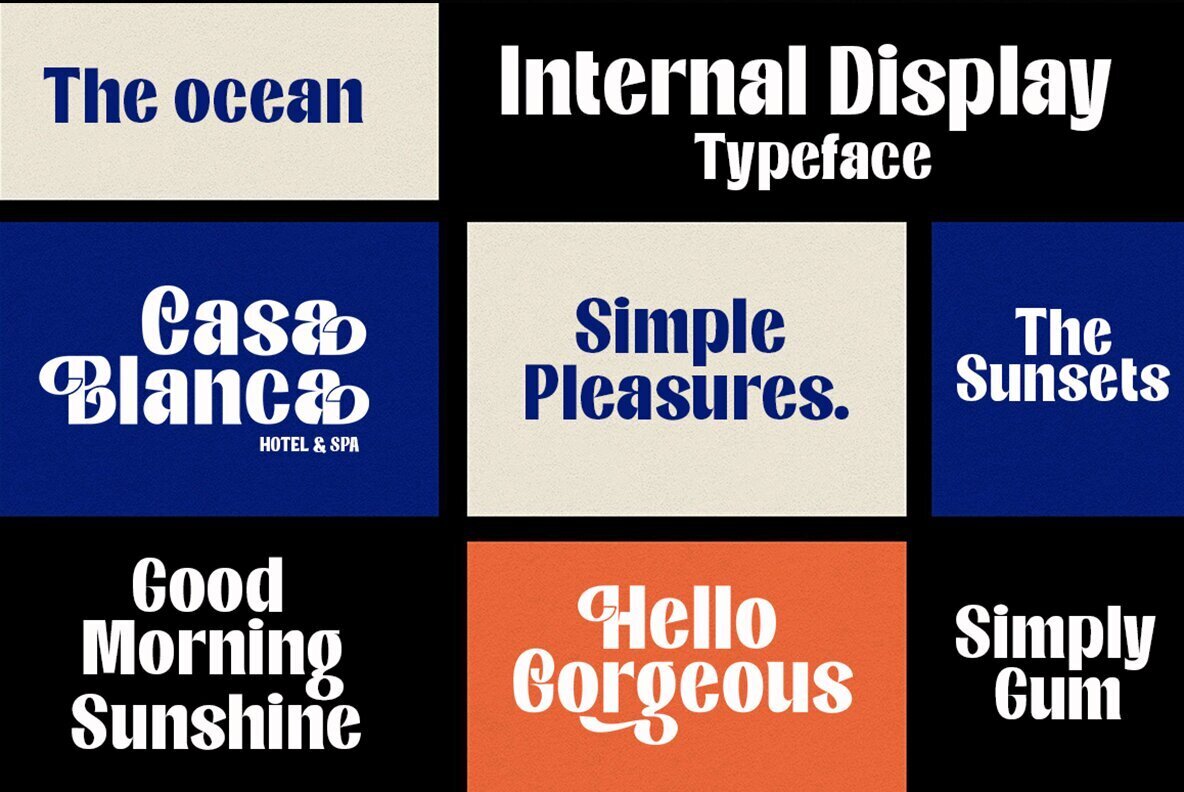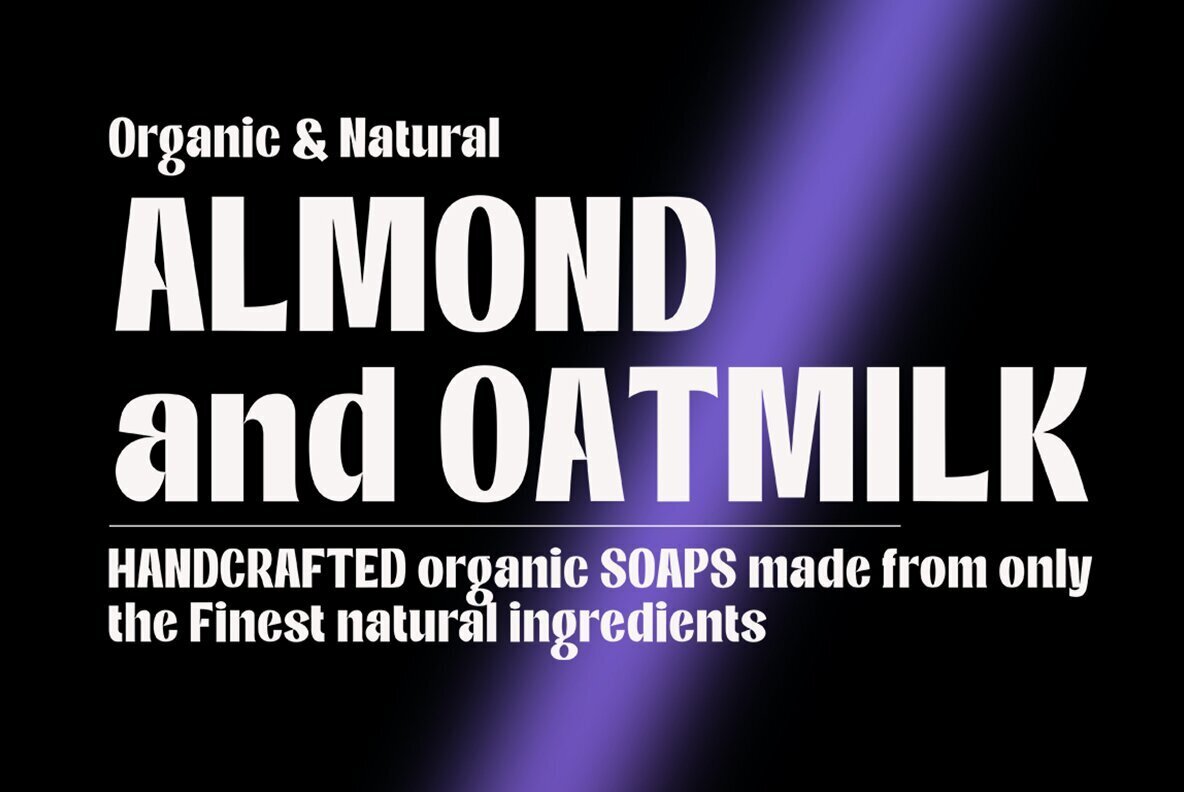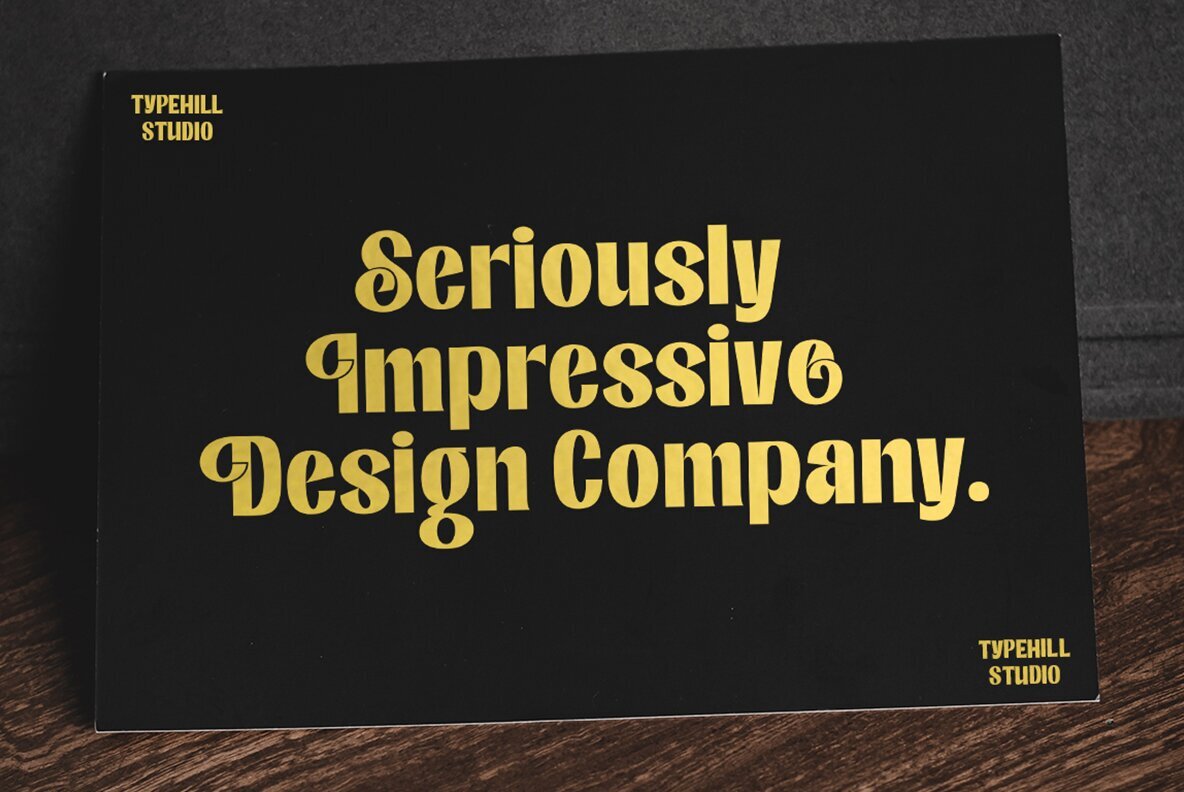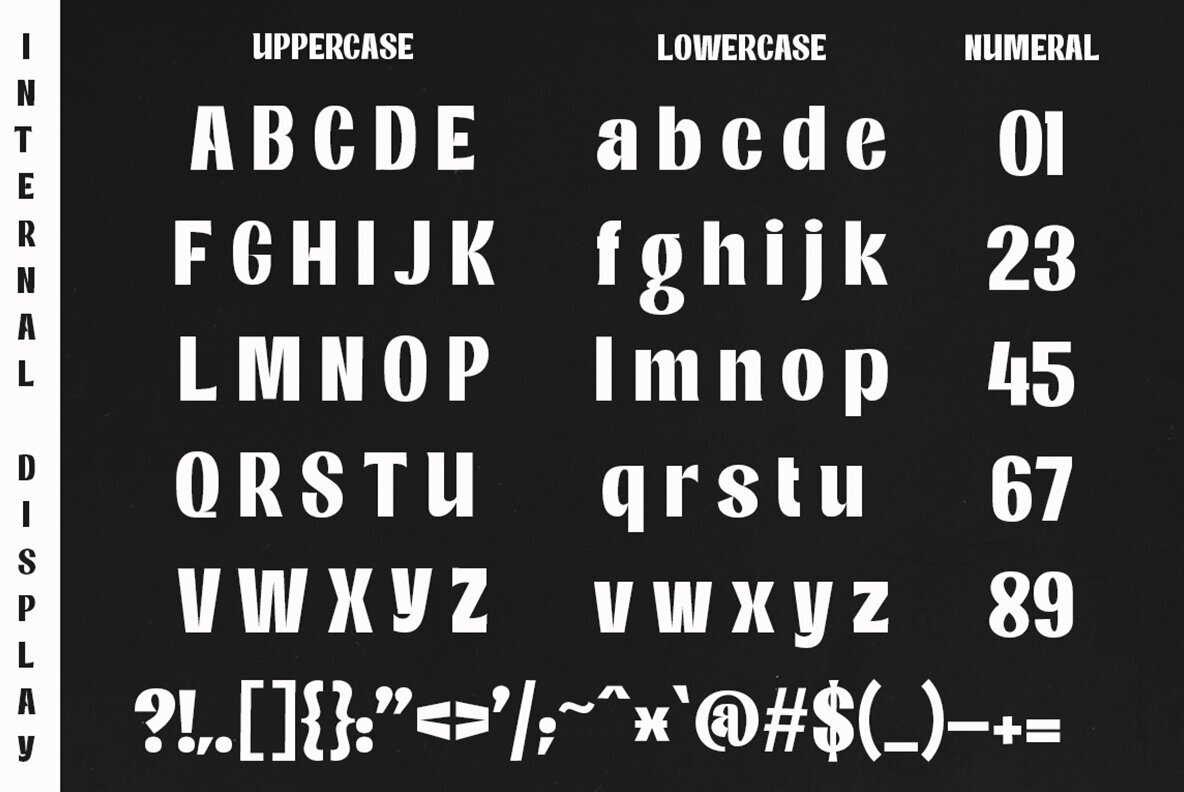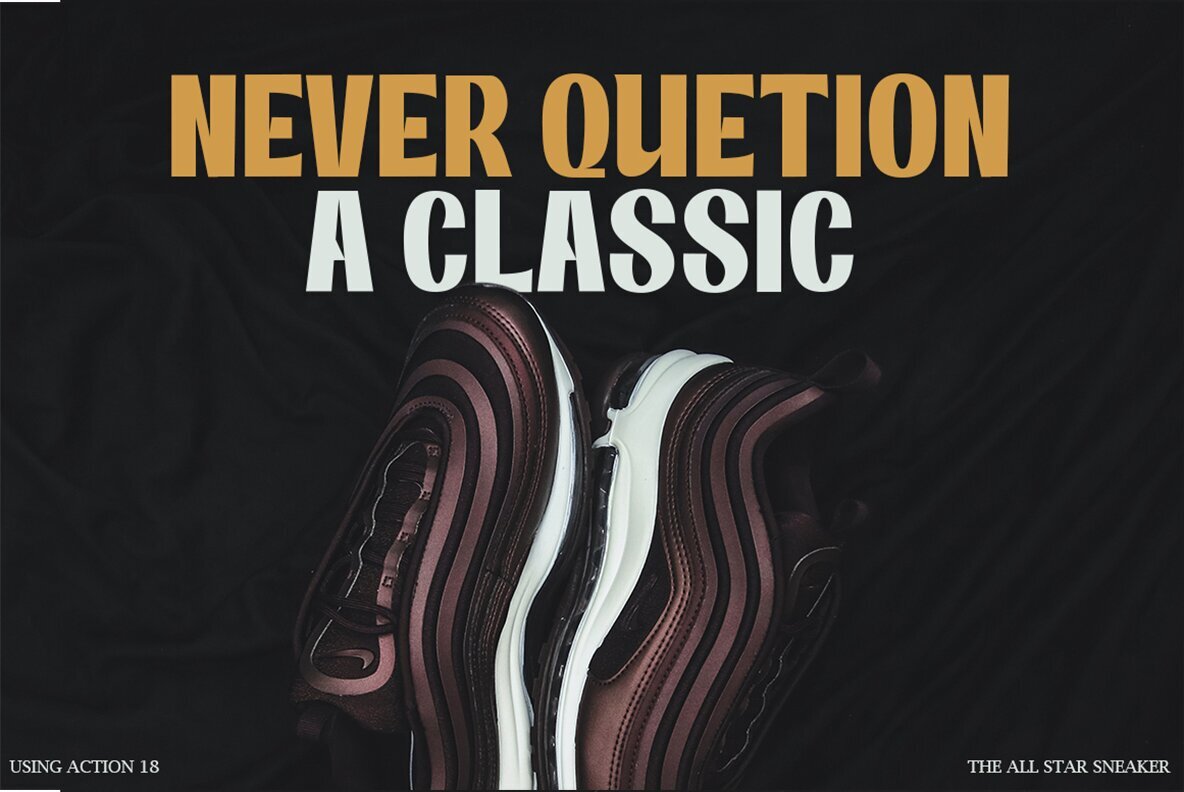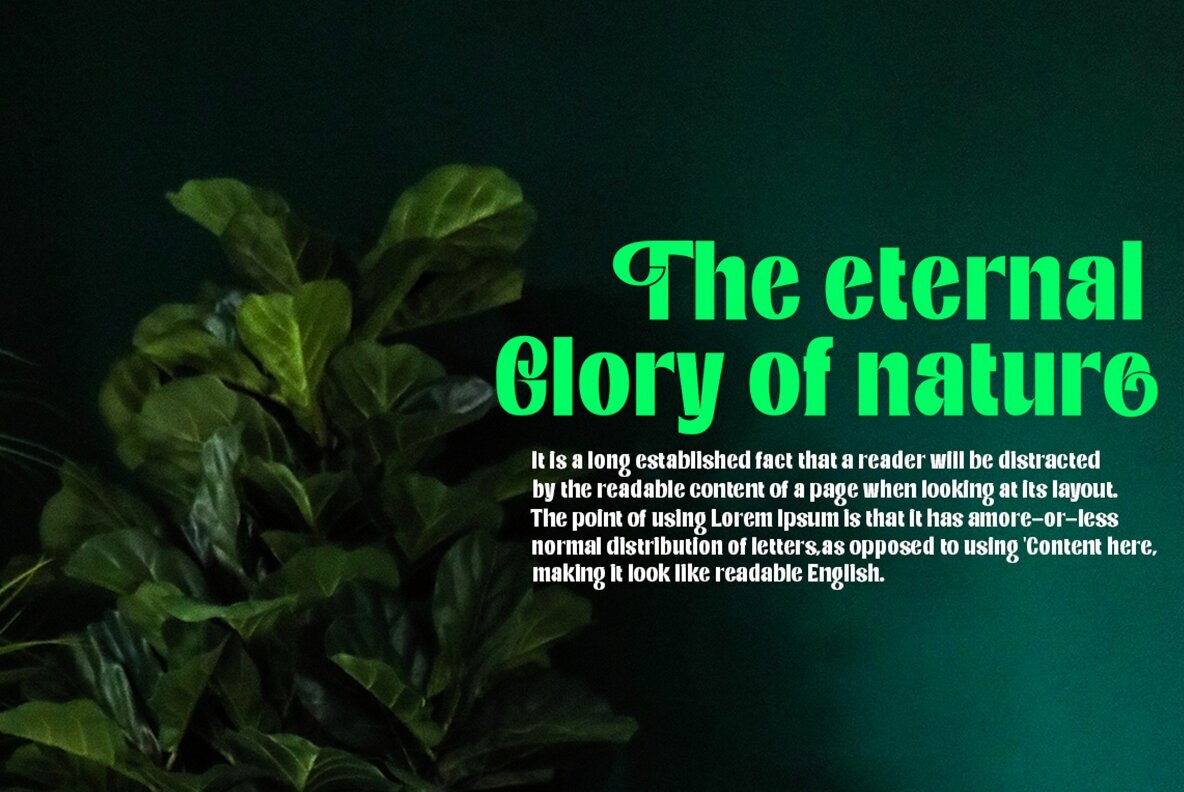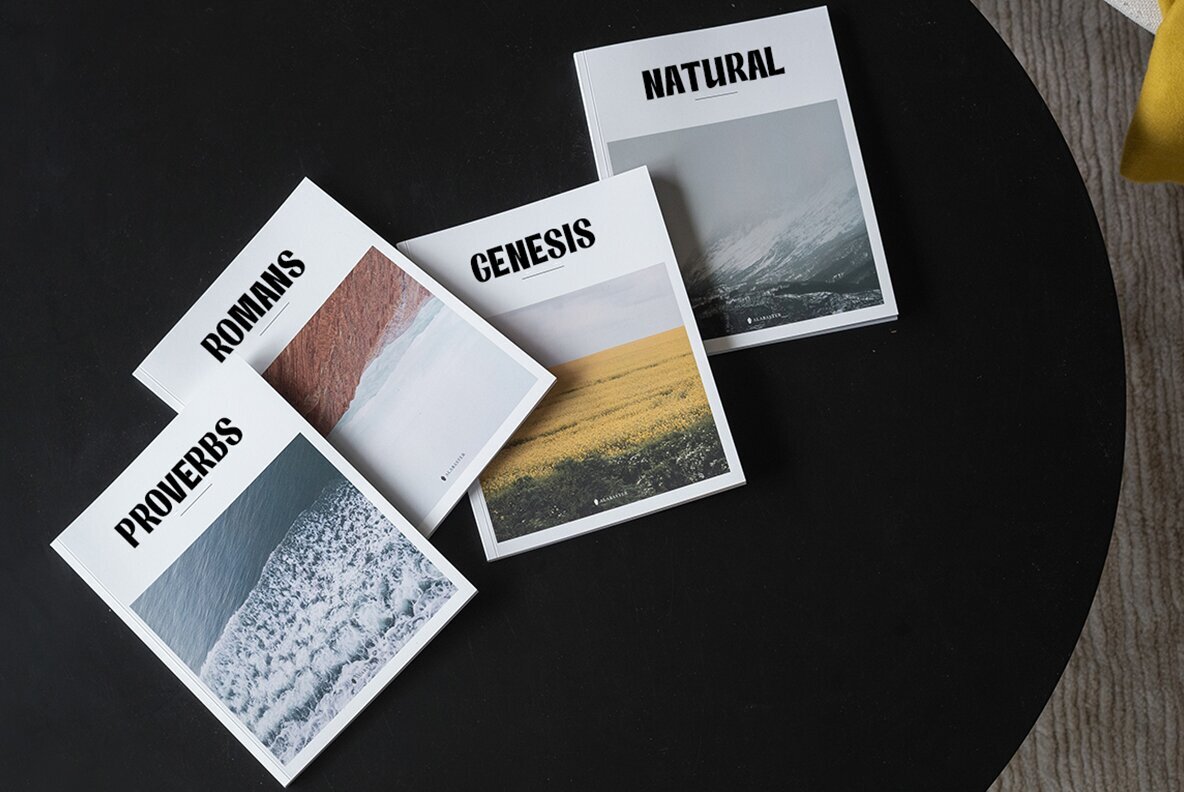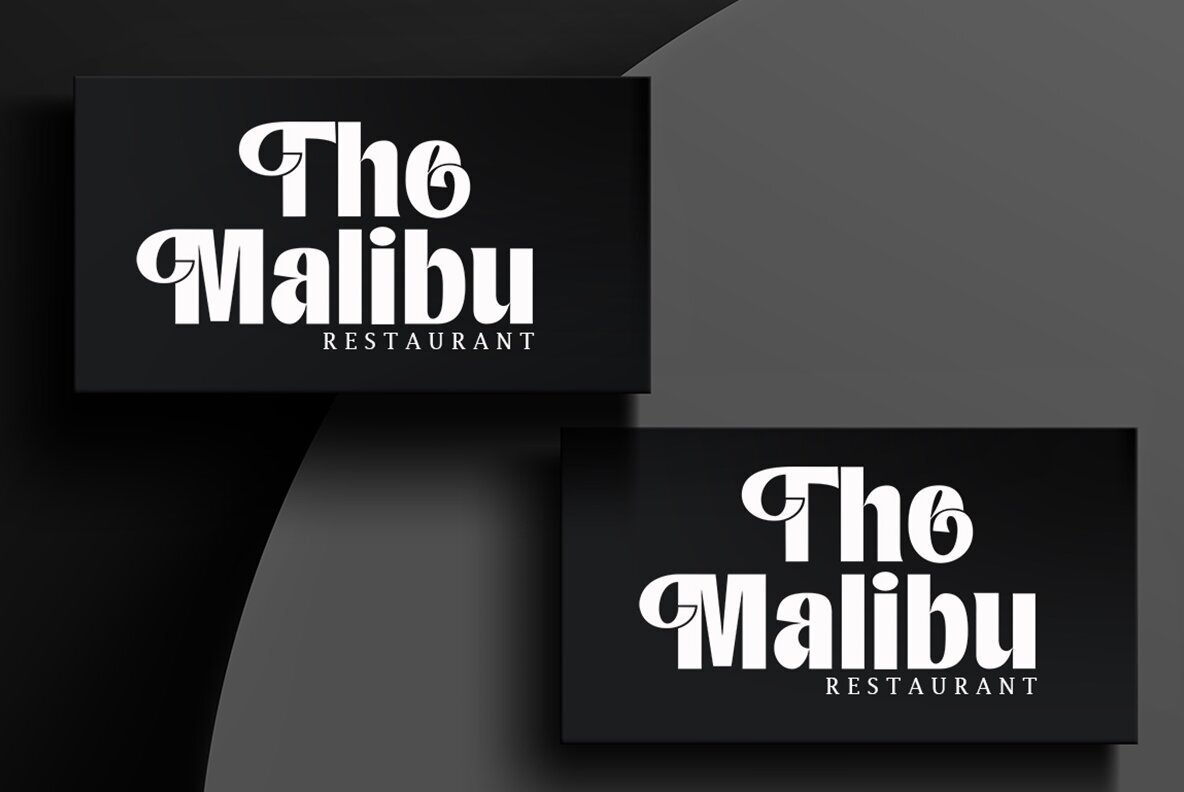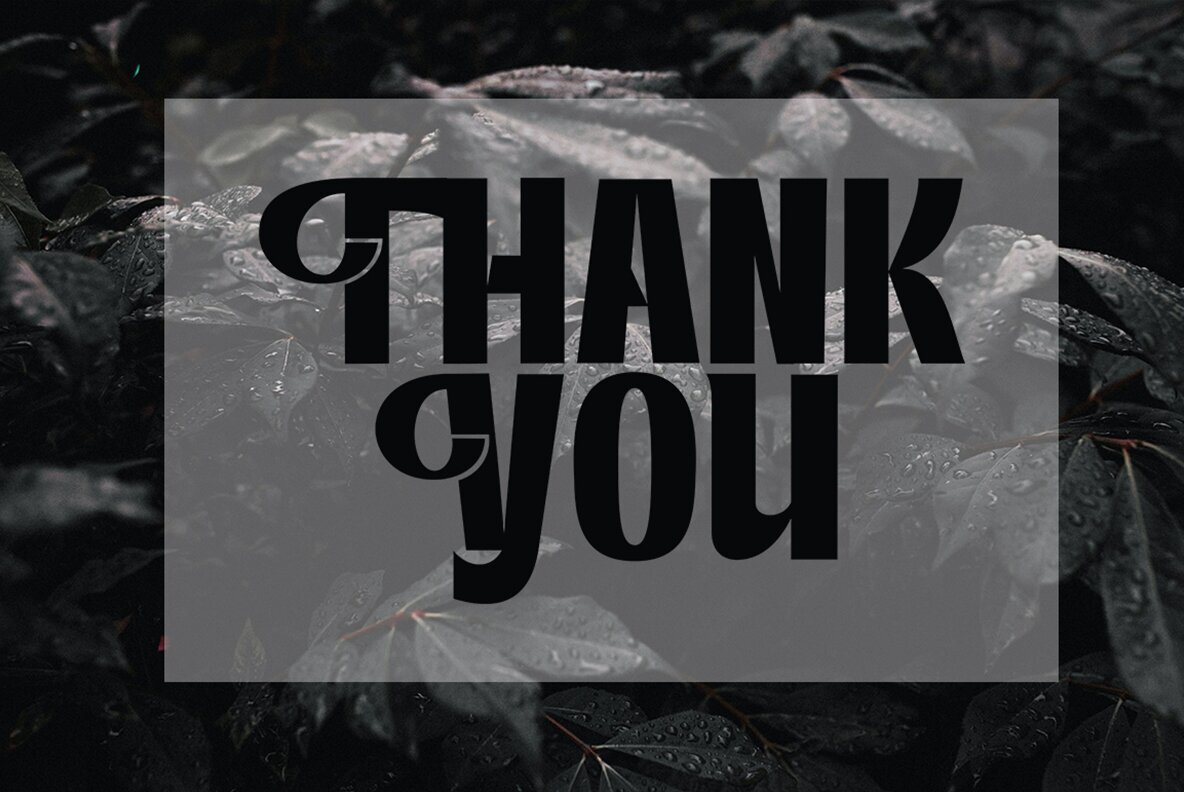
Internal Display Font
Internal Display
Internal Display offers a typeface that embodies smoothness, clarity, uniqueness, and elegance. With its modern and feminine touch, it exudes sensuality and glamour while remaining simple and easy to read. This classic style suits a variety of formal applications.Internal Display: Elegant and Simple Typeface